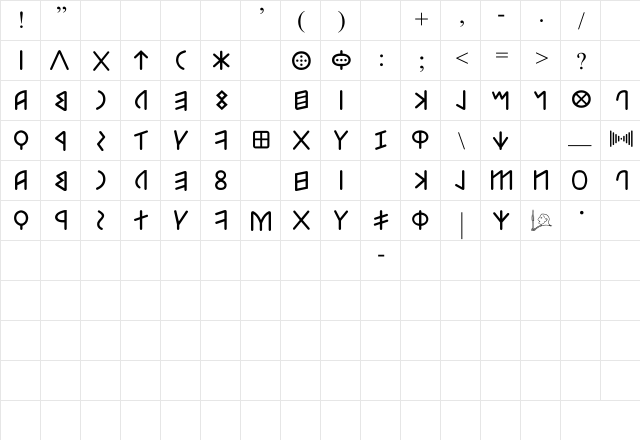
Etruscan mid/late Bold Bold Font Preview
Etruscan mid/late Bold Bold
Etruscan mid/late Bold Bold Font Details
| Designer | gabor z bodroghy |
Design Context for Etruscan mid/late Bold Typeface
Etruscan mid/late Bold is a composed and adaptable typeface that performs quietly and consistently across a wide range of design contexts. The heavy weight commands attention and anchors typographic hierarchies.